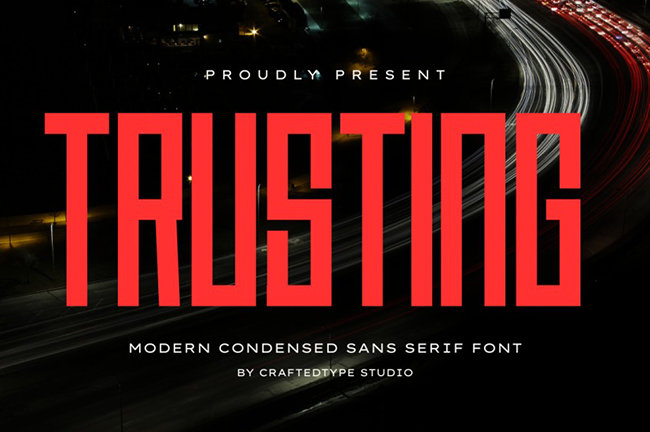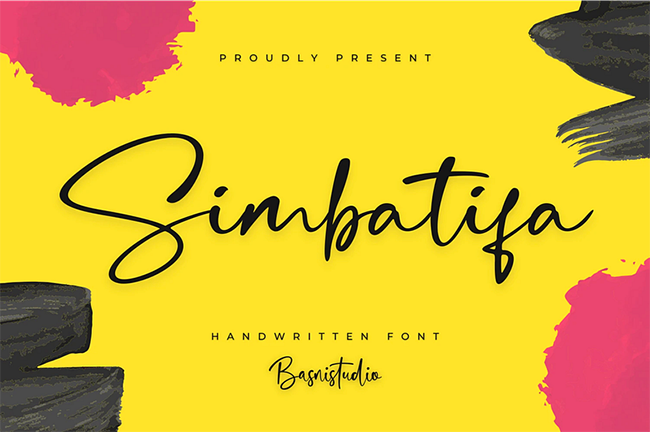
Choosing the right logo font is one of the most important steps in building a strong brand identity. Typography speaks before words do — it shapes how people see your business, influences trust, and helps your brand stand out in a competitive market. That’s why powerful logo fonts are more than just красивый дизайн — they are a strategic branding tool that can instantly communicate confidence, professionalism, and style.
In this guide, we’ve collected the best powerful logo fonts that designers and brands use to create memorable visual identities. Whether you’re working on a startup logo, refreshing your brand identity design, or searching for modern logo fonts that look bold and professional, this подборка поможет вам найти идеальный вариант. From strong typography with clean lines to bold logo fonts that make a statement, every option in this list is selected to help your brand look stronger and more recognizable.
If you’re looking for logo fonts for strong brand identity, this article will show you trending typography ideas, practical examples, and font styles that work for modern branding in 2026. Scroll through the collection and discover powerful fonts that can transform your logo into a clear, confident, and unforgettable brand symbol.
Below you’ll find a curated selection of the best powerful logo fonts designed to help you build a strong and memorable brand identity. We’ve gathered modern and professional logo fonts to make it easier for you to choose the perfect typography for a bold, confident brand.
1. Chunky Puffly Font
Chunky Puffly Font is a bold and playful logo font designed to create a strong and eye-catching brand identity. Its chunky, modern typography makes it perfect for creative branding, fun logos, and standout design projects.
2. Alteix Sans Font
Alteix Sans Font is a clean and modern sans serif logo font designed for strong brand identity and professional branding projects. Its minimalist and powerful typography makes it ideal for logos, business branding, and contemporary design styles.
3. Broela Logo Font
Broela Logo Font is a stylish and modern logo font created to build a strong and memorable brand identity. With its elegant yet powerful typography, it’s perfect for branding, logos, and premium design projects that need a bold and professional look.
4. Laren Font
Laren Font is a modern and powerful logo font designed for creating a strong brand identity with clean, elegant typography. Perfect for branding, logos, and professional design projects, this stylish font helps brands look bold, memorable, and visually confident.
5. Trusting Font
Trusting Font is a modern and elegant typeface designed to create a strong and memorable brand identity. Its clean and stylish typography makes it ideal for logos, branding, and creative design projects that need a professional and refined look.
6. CS Wokley Font
CS Wokley Font is a modern and stylish typeface designed to create a strong and professional brand identity. Its clean and versatile typography makes it perfect for logos, branding, headlines, and contemporary creative design projects.
7. Galgo Condensed Font
Galgo Condensed Font is a bold and modern condensed typeface designed to create a strong and impactful brand identity. Its clean, space-saving typography makes it perfect for logos, branding, headlines, and contemporary design projects that need a powerful, professional look.
8. Quizlo Font
Quizlo Font is a modern and stylish typeface designed to create a strong and memorable brand identity. Its clean and versatile typography makes it perfect for logos, branding, headlines, and creative design projects that need a bold, professional look.
9. Aureva Sans Serif Font
Aureva Sans Serif Font is a clean and modern sans serif typeface designed to create a strong and professional brand identity. Its minimalist and versatile typography makes it perfect for logos, branding, editorial design, and contemporary creative projects.
10. Redwing Font
Redwing Font is a bold and modern typeface designed to create a strong and impactful brand identity. Its clean and powerful typography makes it perfect for logos, branding, headlines, and creative design projects that need a confident, professional look.
11. XXII Aven Font
XXII Aven Font is a modern and minimalist typeface designed to create a strong and elegant brand identity. Its clean, contemporary typography makes it perfect for logos, branding, editorial design, and professional creative projects.
Now you have a selection of the best powerful logo fonts to help you build a strong and memorable brand identity. Choose the typography that matches your brand personality and make your logo truly stand out.